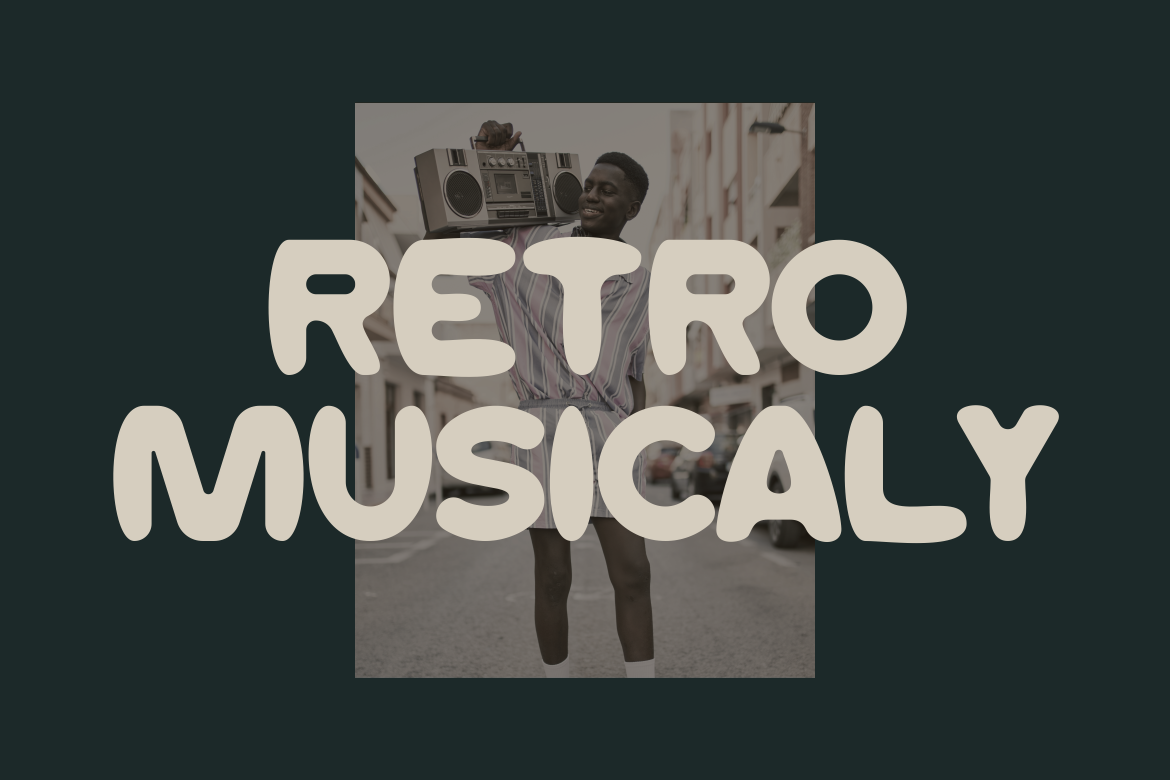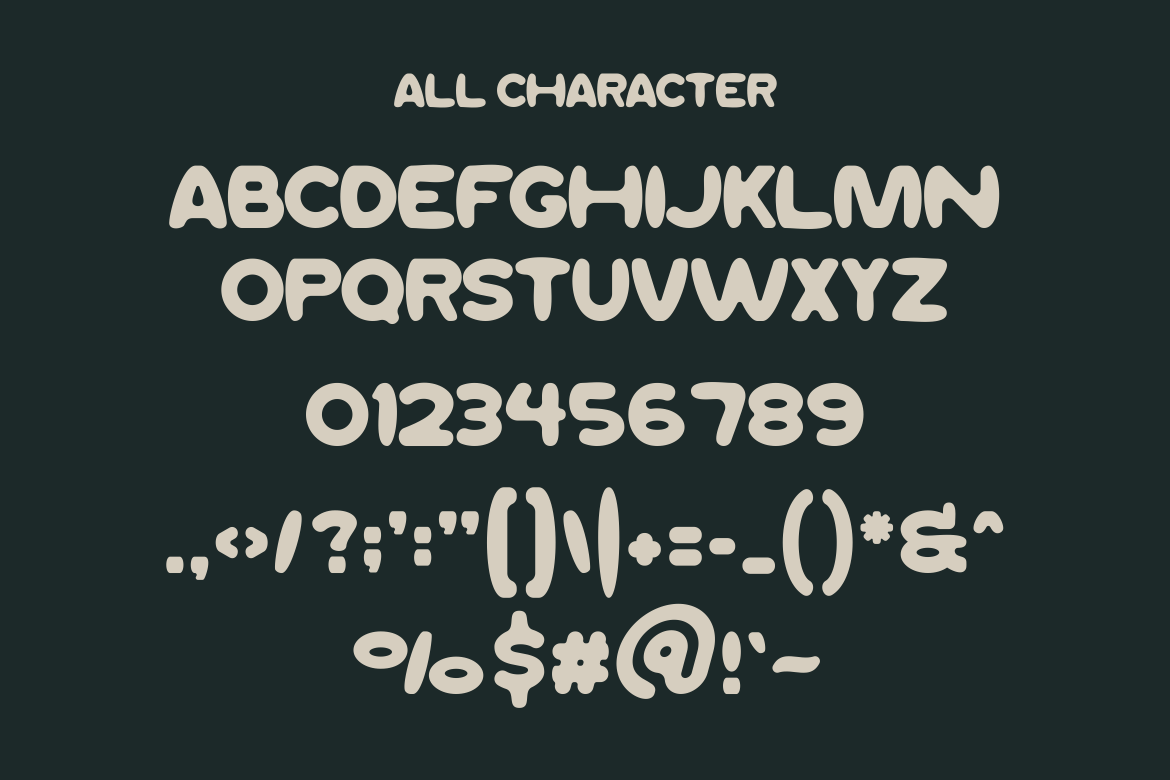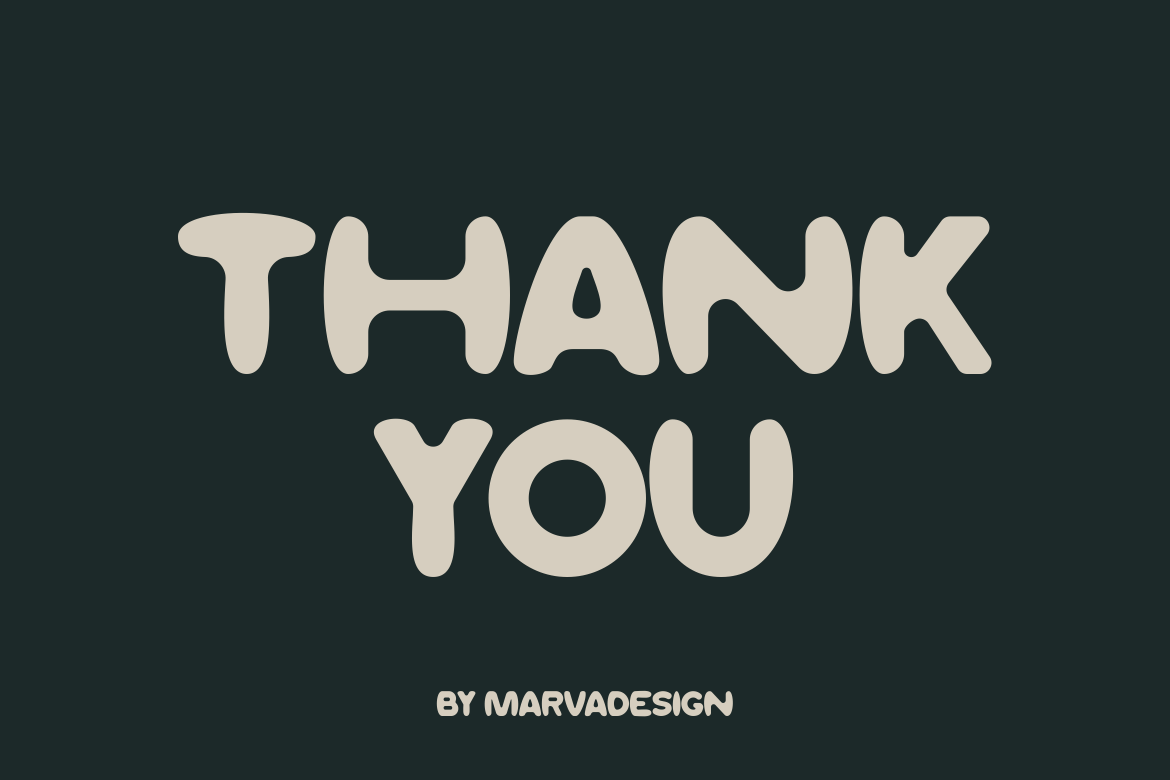
MarketplaceFontsLossage - A Modern Display Font
Introducing our new product LOSSAGE Font - Modern Font LOSSAGE Font** - Modern Font is a bold and authentic display font. The font is suitable for any branding project like logo, t-shirt printing, Product and many more. outstanding in a wide range of contexts.